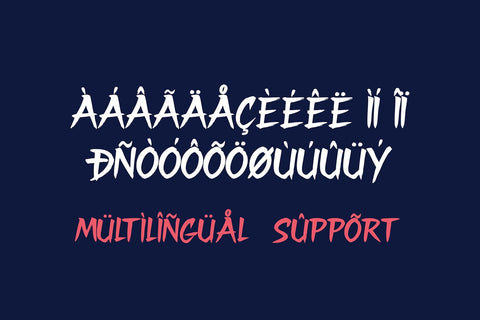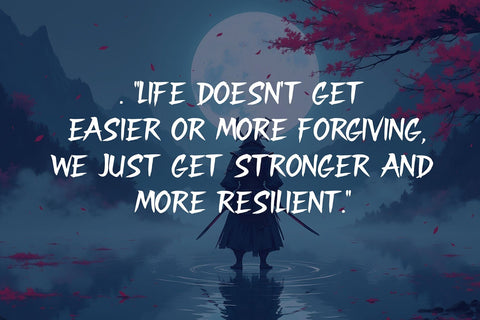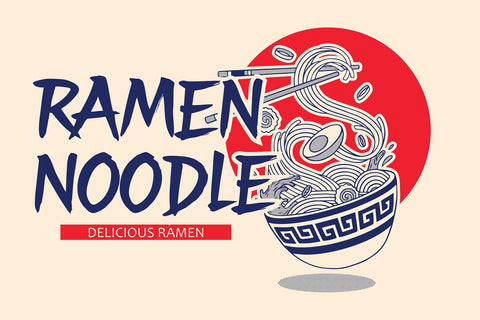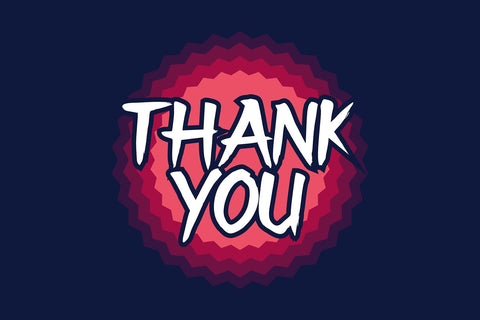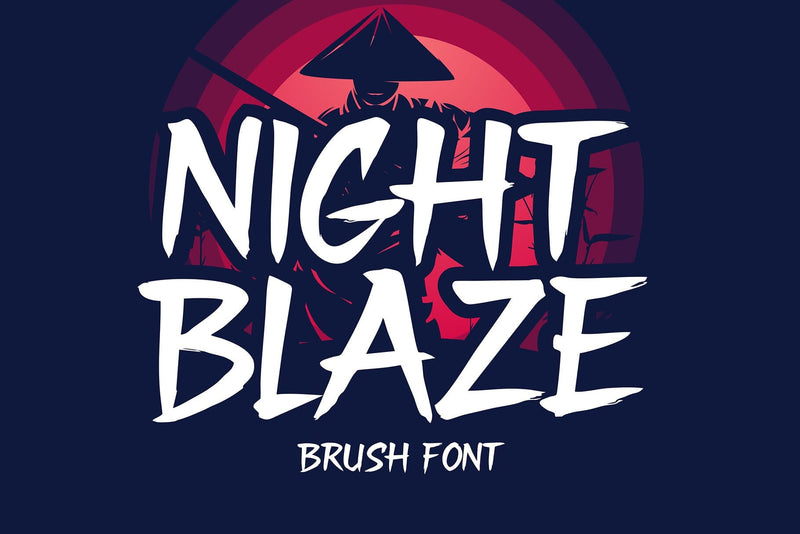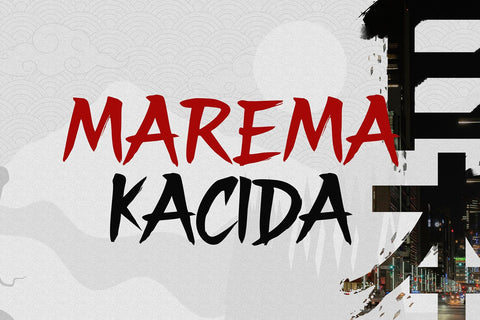
Night Blaze – Brush Font for Sharp Design
Night Blaze is a bold and expressive brush font crafted for creators who crave intensity in their designs. It features rough brush strokes, imperfect textures, and energetic movement — embodying a rebellious, dynamic, and action-packed aesthetic. From samurai warriors to gritty streetwear brands, this font delivers storytelling through its raw letterforms.
Perfect for display use, Night Blaze excels in headers, logos, apparel prints, gaming thumbnails, movie posters, tattoo-inspired artwork, and digital designs that demand attention. It supports multilingual characters and works seamlessly in both print and digital formats.